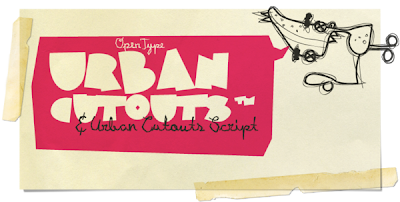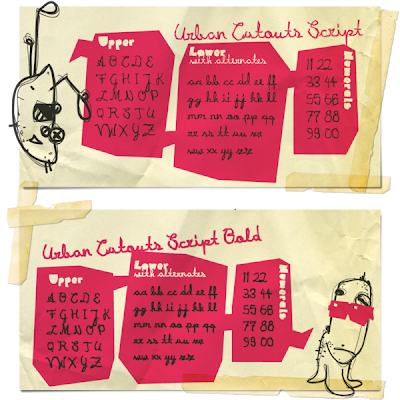
TypeFace Tuesday :: Urban Cutouts Font
It's great to see an urban font that isn't graffiti (not that there's anything wrong with that - there are just a bazillion graffiti fonts). I really love that this looks handmade - props to designer Lector Johnson and Doubletwo Studios!